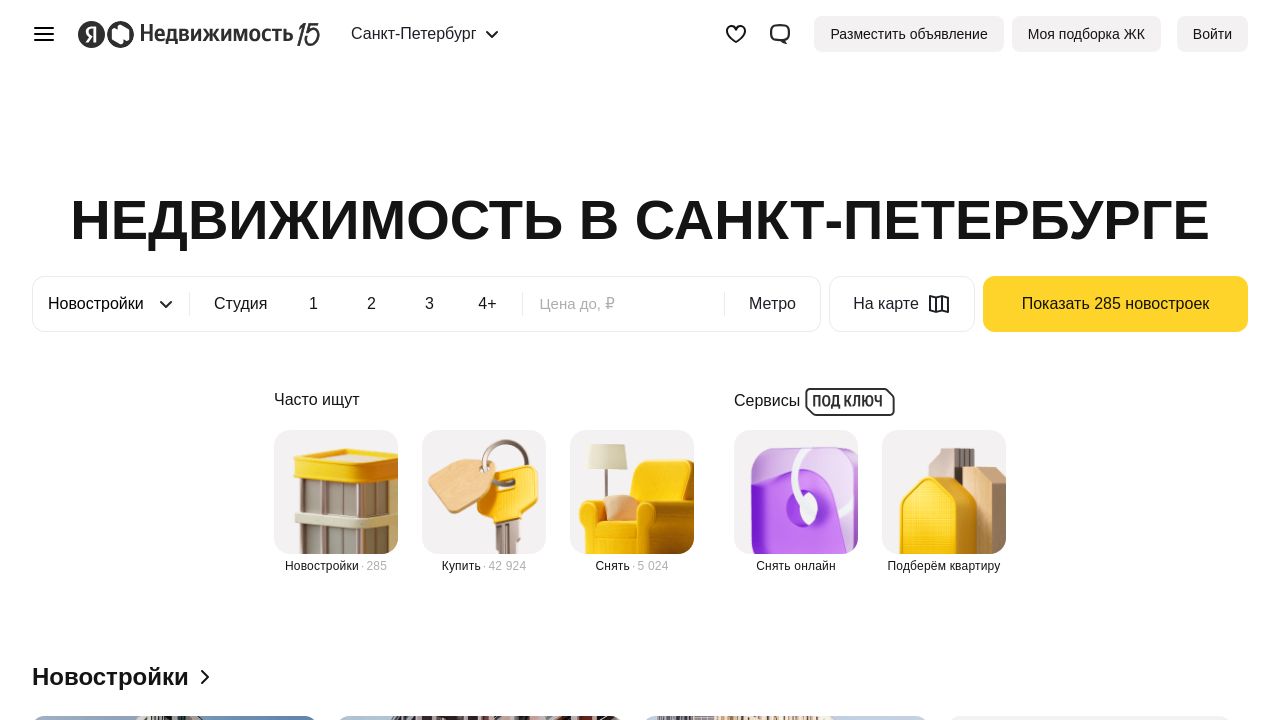
What fonts does Realty use?
Realty.yandex.ru utilizes a distinctive combination of custom fonts including YS Text, YS Display, YS Text Cond, and YS Display Cond. These font choices reflect the site's focus on real estate, providing clarity and accessibility for users seeking property information. The weights of these fonts, particularly the bold YS Display Cond at 800, help draw attention to important details, while the fallback options like Arial and Helvetica Neue ensure a consistent experience across devices.
Frequently asked questions about Realty.yandex.ru's fonts
What fonts are used on realty.yandex.ru?
Realty.yandex.ru primarily uses YS Text, YS Display, YS Text Cond, and YS Display Cond. These custom fonts enhance readability and user engagement.
How does YS Display Cond compare to other fonts?
YS Display Cond, especially in weight 800, offers a strong presence that helps highlight important sections, unlike many standard fonts like Arial.
What styles and weights are available for YS Text?
YS Text is available in a weight of 400, providing a balanced and legible option for body text, ensuring a seamless reading experience for users.
Are there fallback fonts used on realty.yandex.ru?
Yes, realty.yandex.ru uses fallback fonts such as Arial and Helvetica Neue to ensure text remains legible across different devices and browsers.